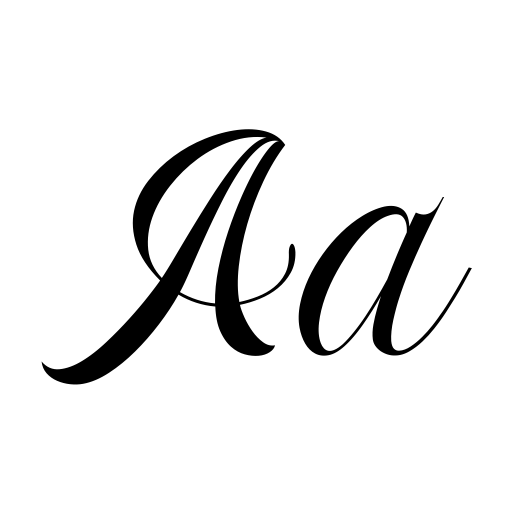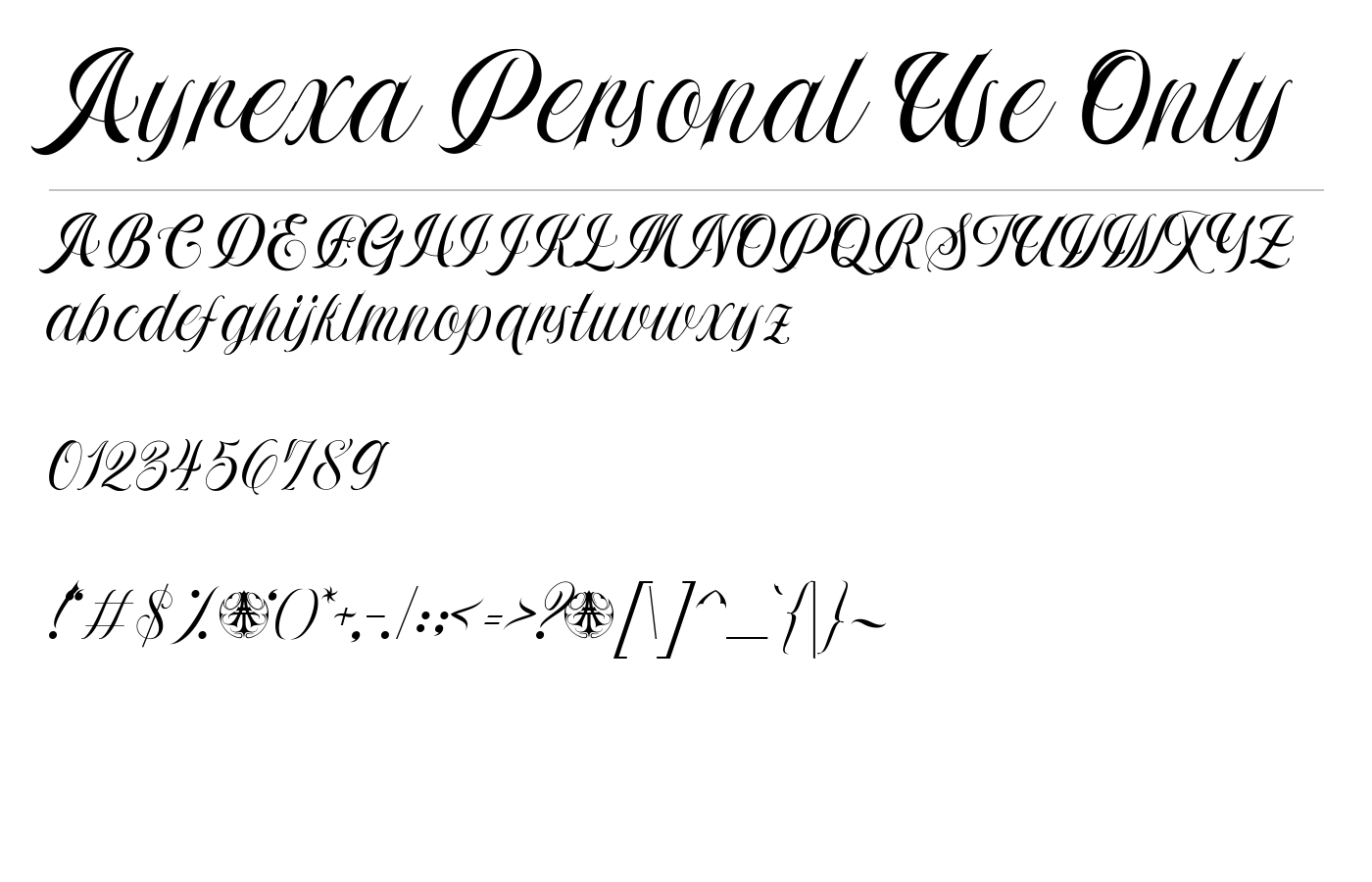
Ayrexa Personal Use Only is an elegant script font characterized by its flowing, calligraphic strokes and refined contrast between thick and thin lines. Its slender letterforms with graceful curves and distinctive swashes create a sophisticated and stylish feel, ideal for luxury branding, invitations, and decorative headlines where a touch of classic refinement is desired. This font works beautifully in display settings, adding a personal and artistic flair to designs.
Ayrexa Personal Use Only Font
About Ayrexa Personal Use Only Font